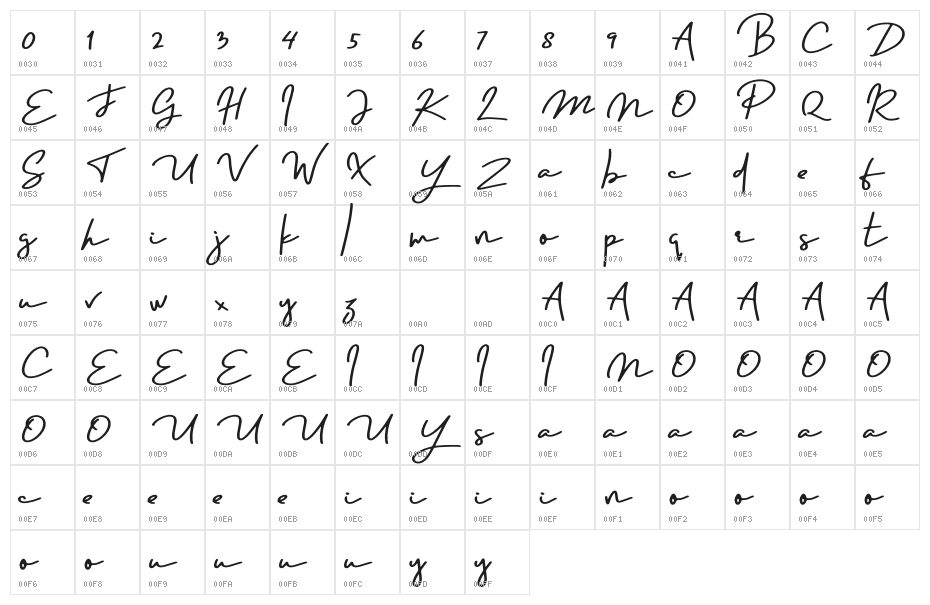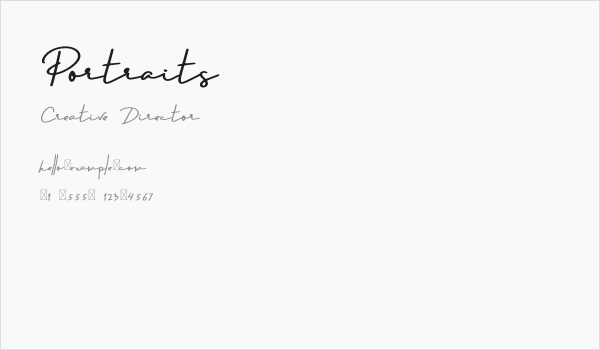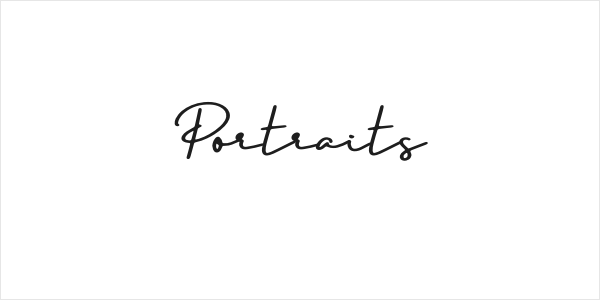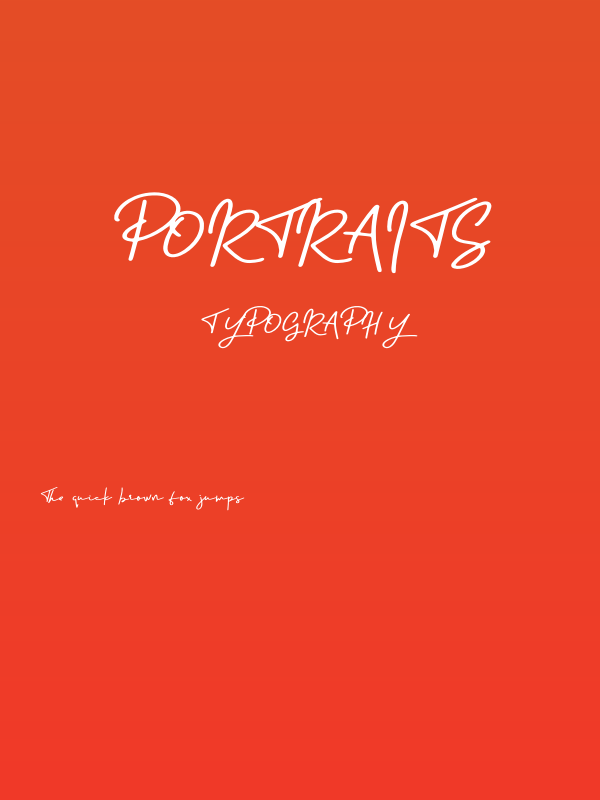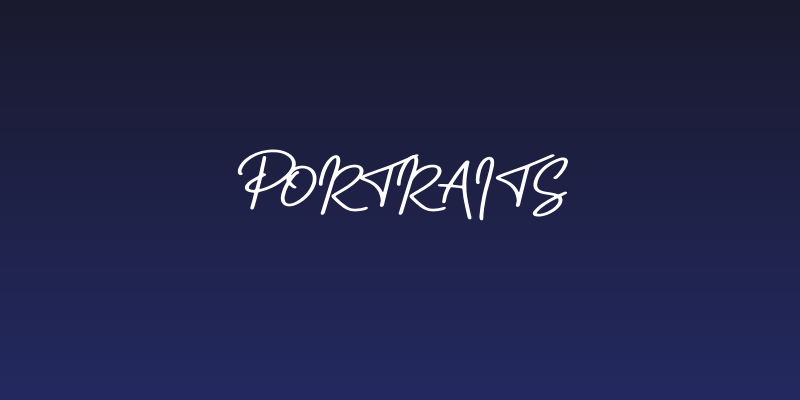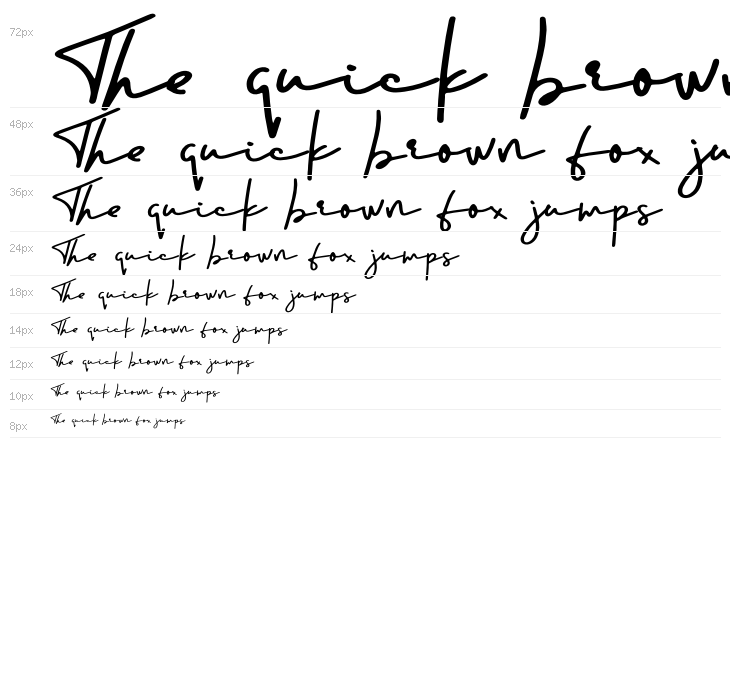
Portraits Font
Portraits Description
This font features a dynamic and fluid script style, characterized by its elegant and flowing cursive letters. The uppercase and lowercase letters are seamlessly connected, creating a sense of movement and grace. The strokes are smooth and slightly varied in thickness, adding a touch of sophistication and personality. The numerals are consistent with the script style, maintaining the same fluidity and elegance. This font is ideal for projects that require a personal and artistic touch, such as invitations, greeting cards, and branding materials.
| Proposed Projects | Ideal for invitations, greeting cards, branding, and artistic projects. |